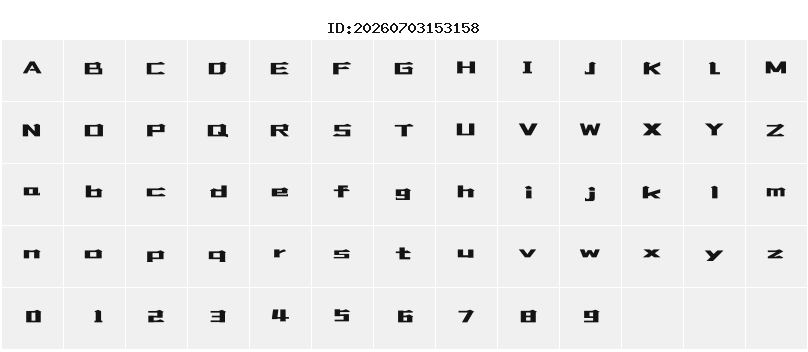
339-上首品尚体 Preview
• Font Name: 339-上首品尚体
• Font ID: 339-SSPinShangTi:Version 4.00
• Full Font Name: 339-上首品尚体
• Version: Version 4.00 June 26, 2024
• PostScript Name: 339-SSPinShangTi
• Character Count: 7568
• Manufacturer: 上首造字
About 339-上首品尚体.ttf
339-上首品尚体.ttf is a modern, elegant sans-serif font designed for ultimate readability and visual harmony. Perfect for branding, headlines, web design, and print materials.